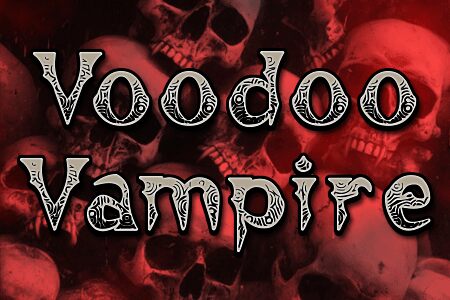
Voodoo Vampire by Anthony Robinson is a free scary display font with bulbous, uneven outlines and a modern Gothic edge. Whorled interior lines resemble veins and rough-cut ornamental carving.
Horror, occult folklore, and dark carnival themes suit its mix of grotesque shape and meticulous decoration, especially in entertainment aimed at viewers who enjoy theatrical macabre imagery. It can turn film posters, game packaging, Halloween event graphics, and band merchandise into objects that feel drawn from a haunted sideshow or eccentric cabinet of curiosities. Entire words can become sinister emblems, with the inner patterns functioning as part of the illustration rather than mere surface decoration.